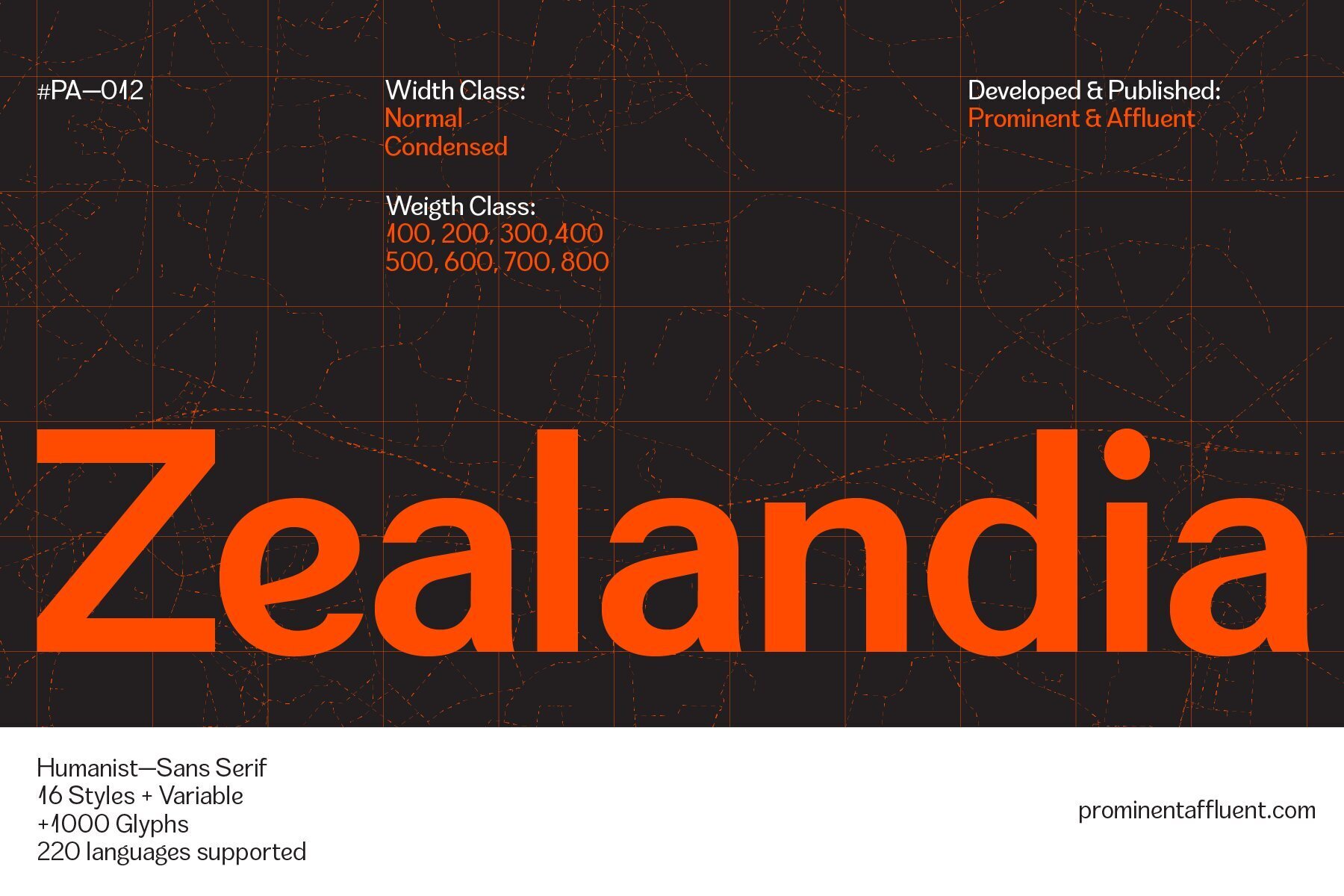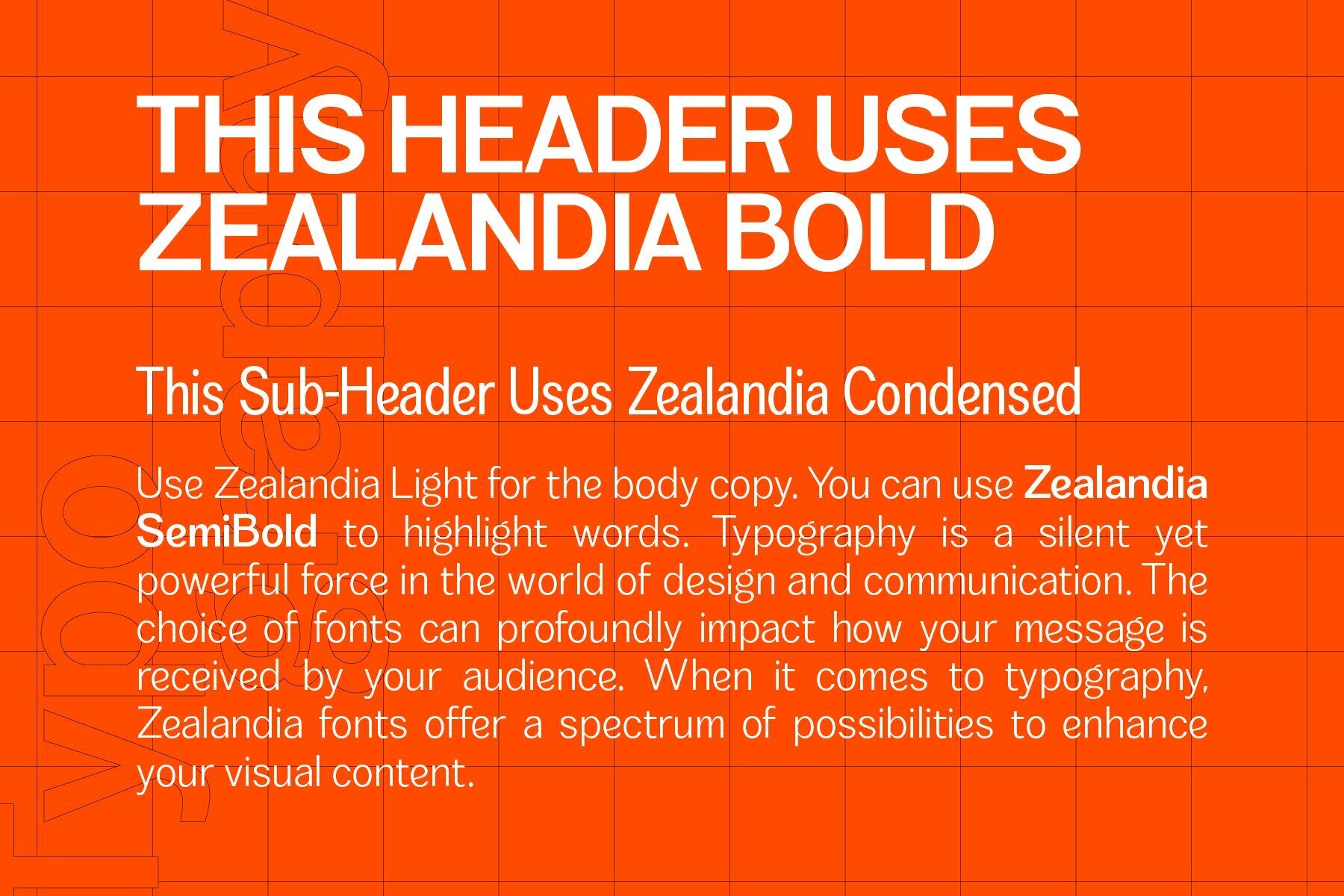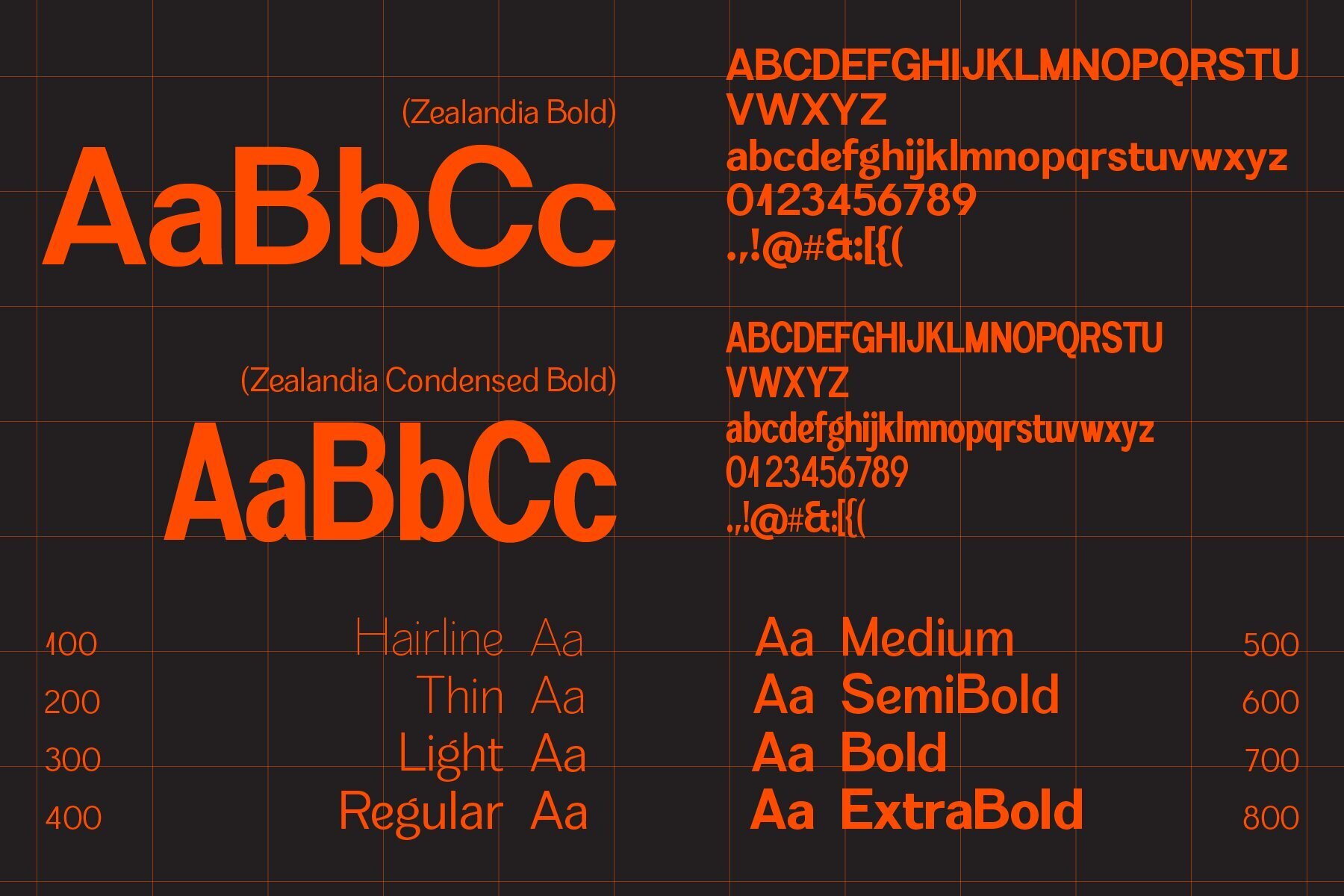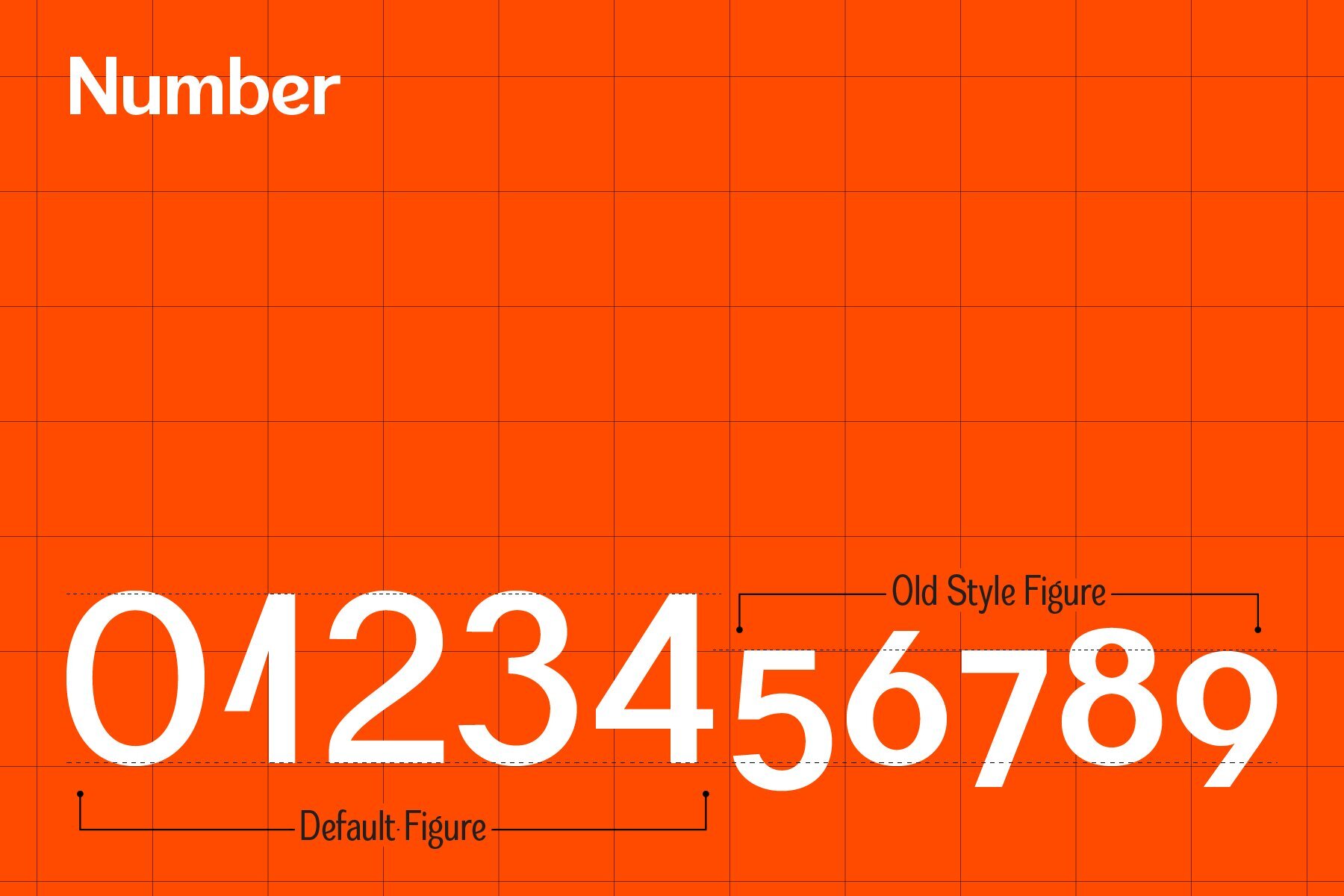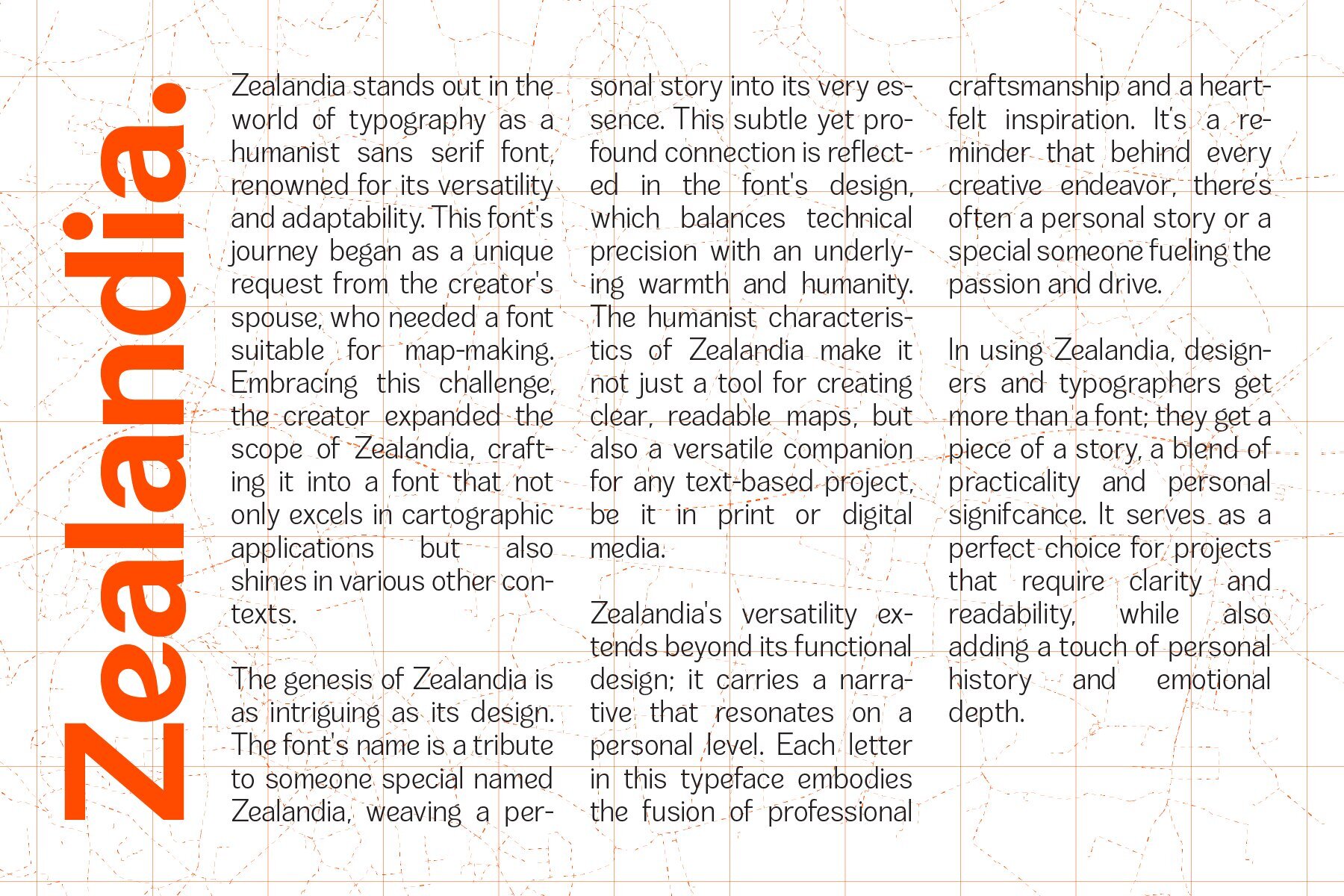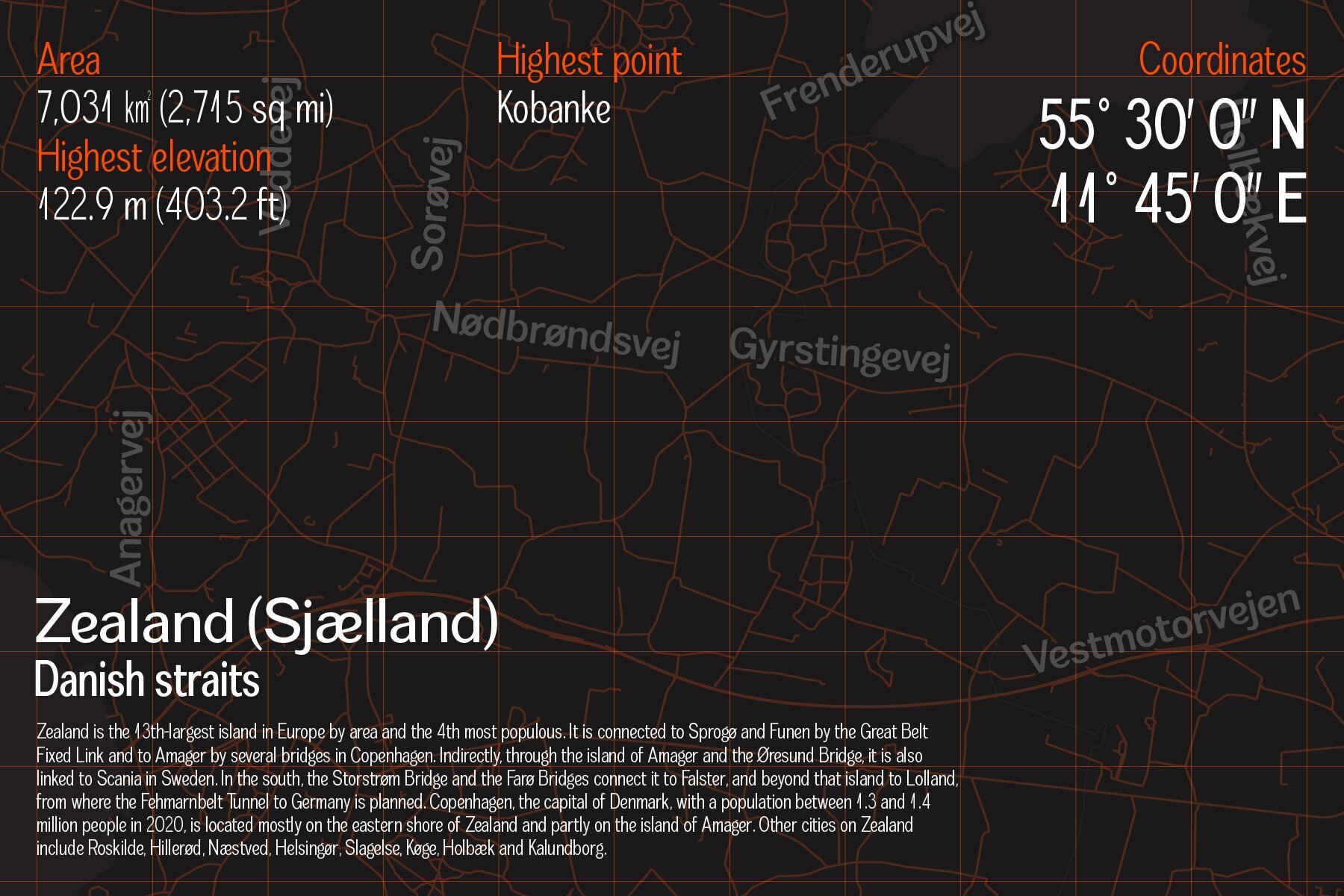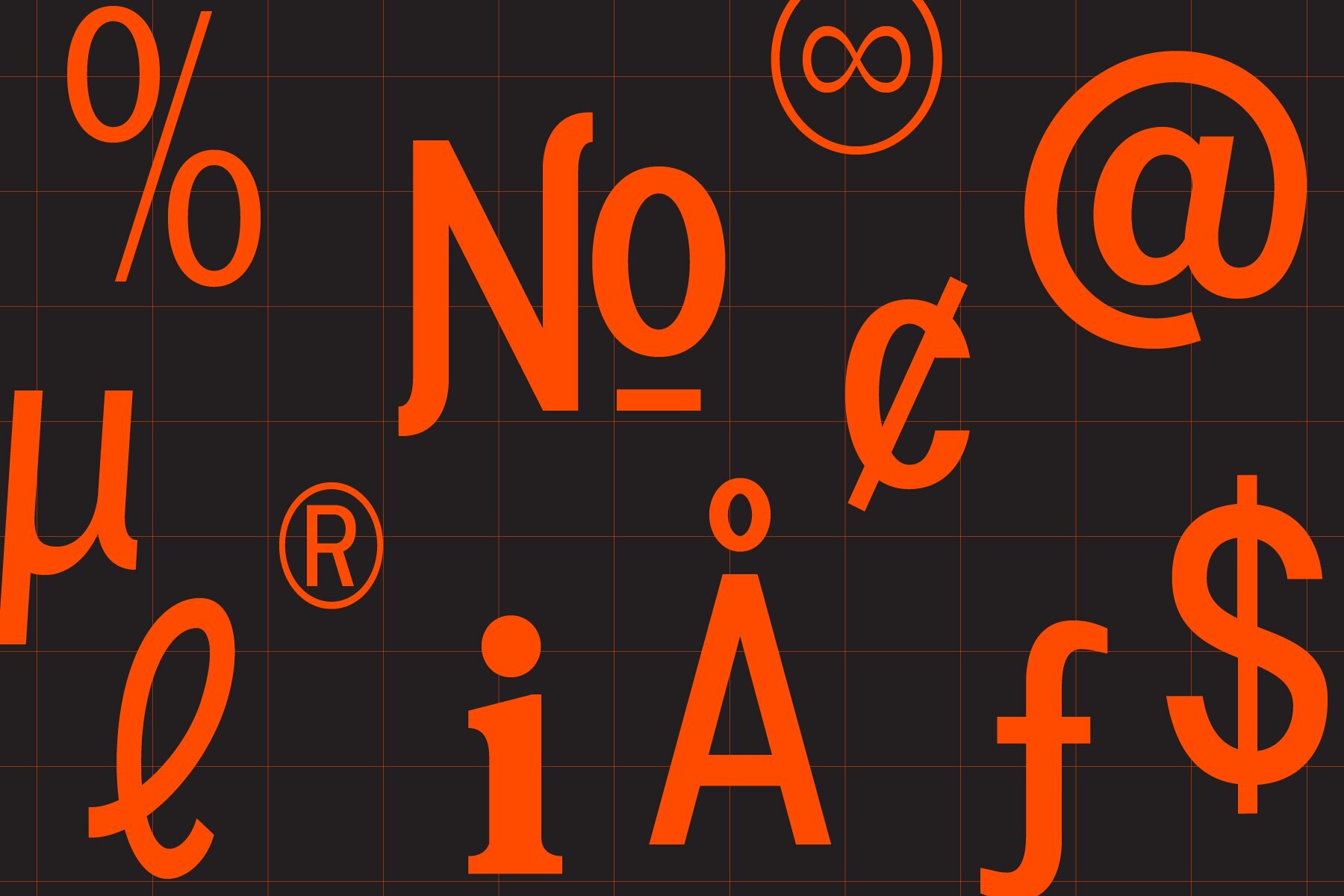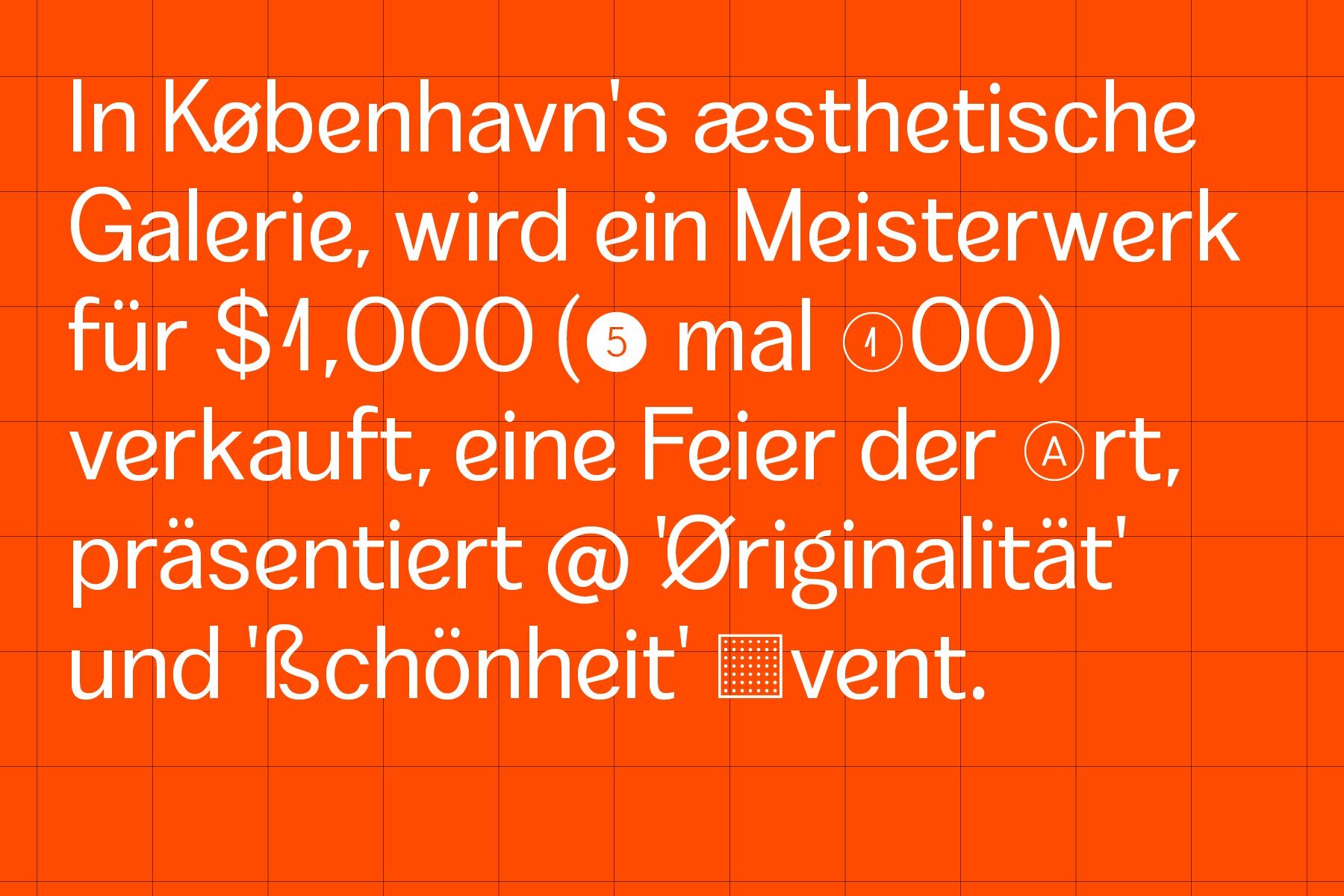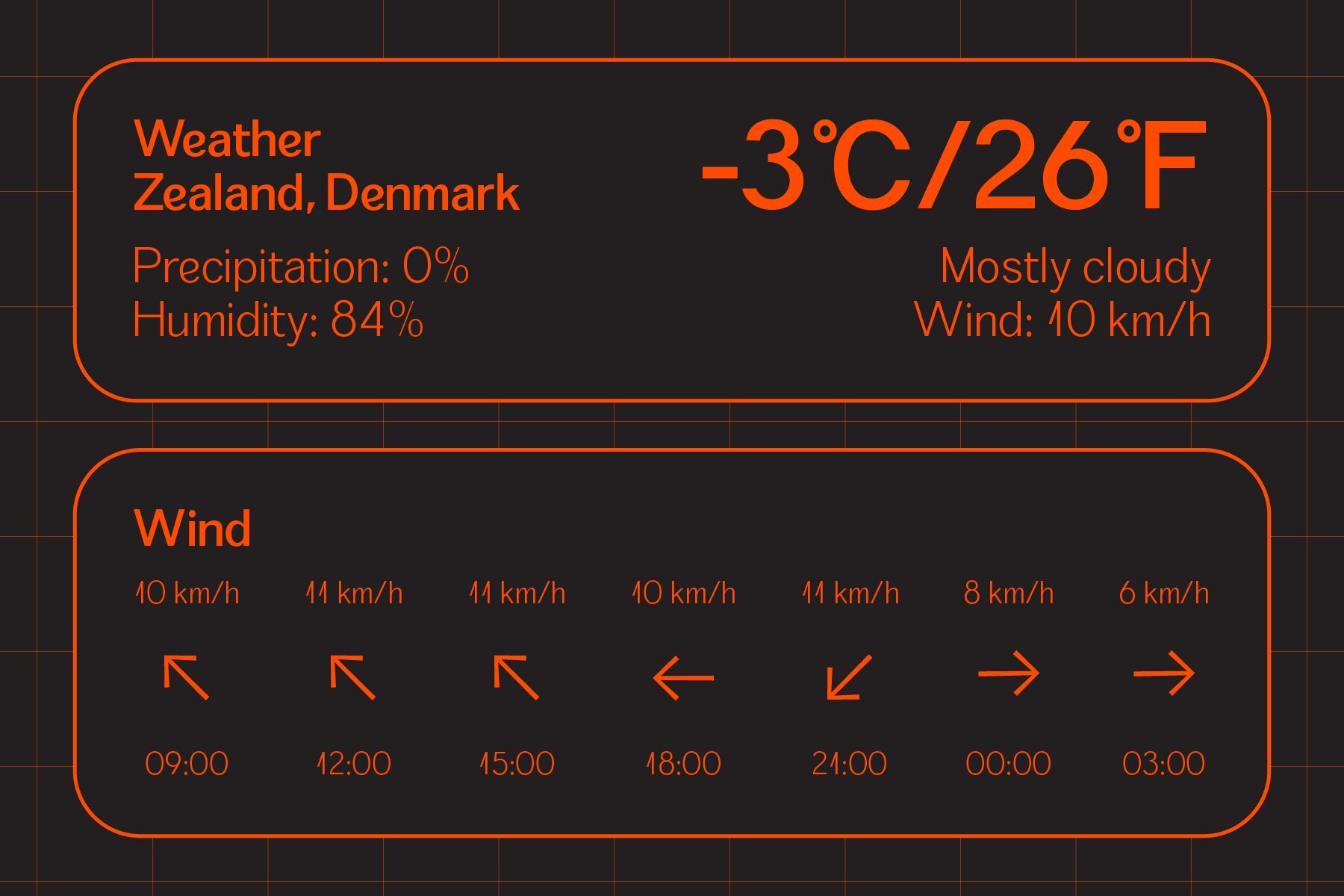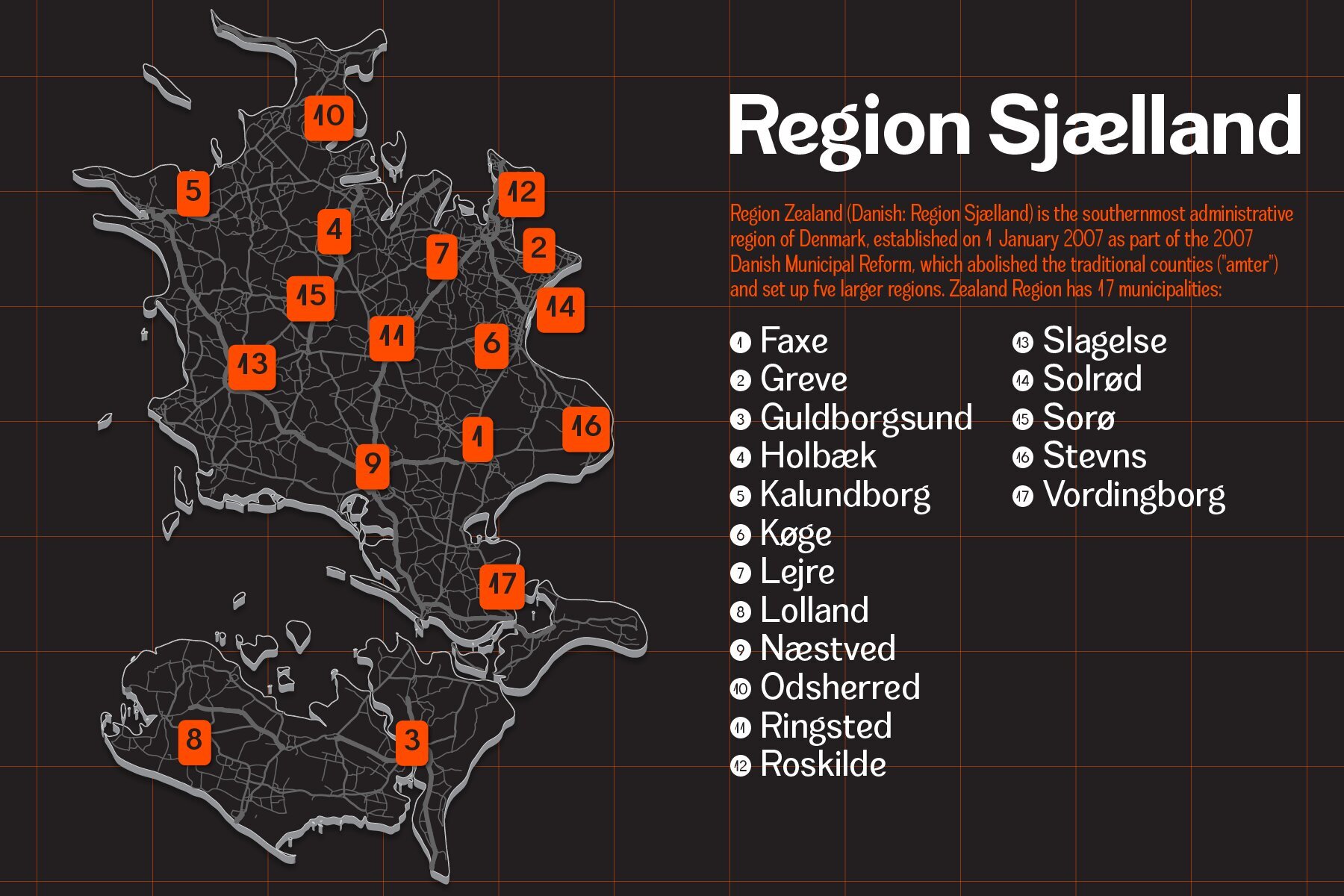
Zealandia Font
Zealandia’s versatility extends beyond its functional design; it carries a narrative that resonates on a personal level. Each letter in this typeface embodies the fusion of professional craftsmanship and a heartfelt inspiration. It’s a reminder that behind every creative endeavor, there’s often a personal story or a special someone fueling the passion and drive. In using Zealandia, designers and typographers get more than a font; they get a piece of a story, a blend of practicality and personal significance. It serves as a perfect choice for projects that require clarity and readability, while also adding a touch of personal history and emotional depth.